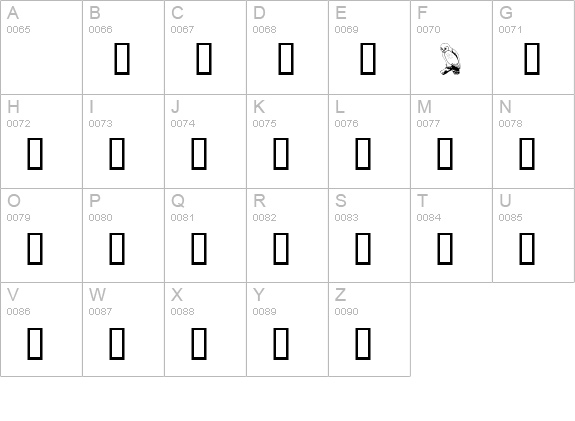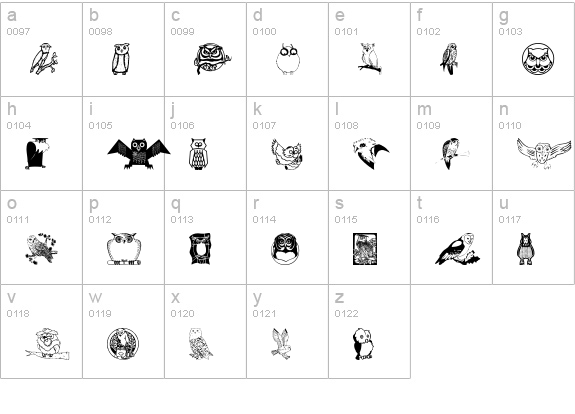
Carsten'sOwls Font Details
Carsten'sOwls font is a charming and whimsical typeface that captures the essence of nature with its delicate owl-inspired design. Each letter is intricately crafted to resemble the graceful silhouette of an owl in flight, making it a unique and eye-catching choice for your creative projects. This free font is perfect for adding a touch of enchantment to your designs, whether you're working on invitations, branding, or social media graphics. Its versatility allows you to easily create a magical and playful atmosphere, making it a favorite among designers looking to add a touch of whimsy to their work. Carsten'sOwls font is freely available to download at FontsMarket.com, where you can access this delightful typeface and add a touch of owl-inspired charm to your projects. Embrace the magic of nature with Carsten'sOwls font and watch your designs come to life with its enchanting appeal.